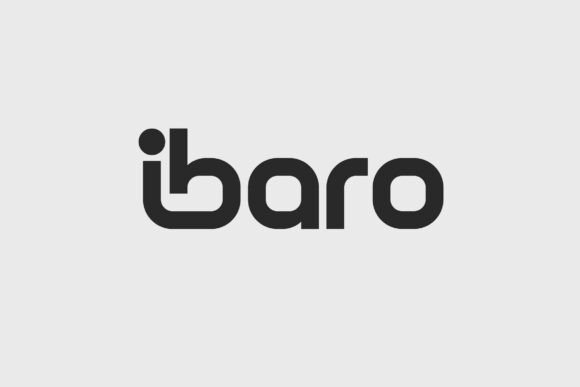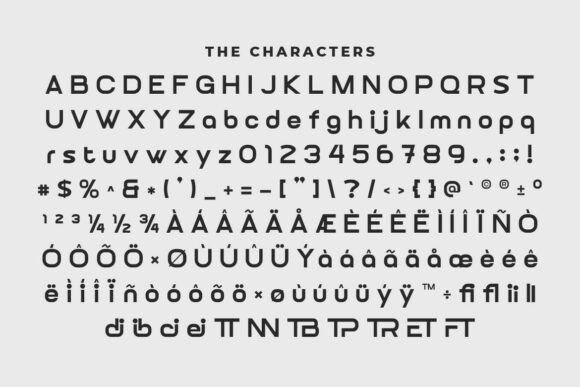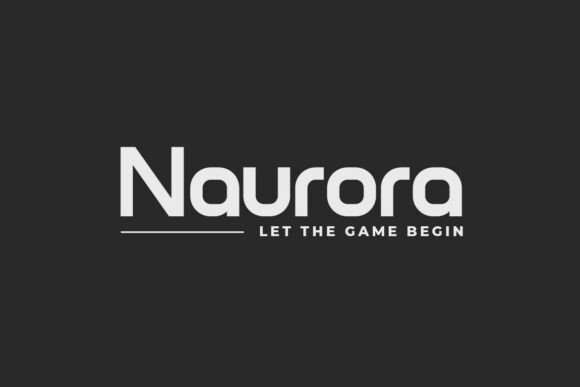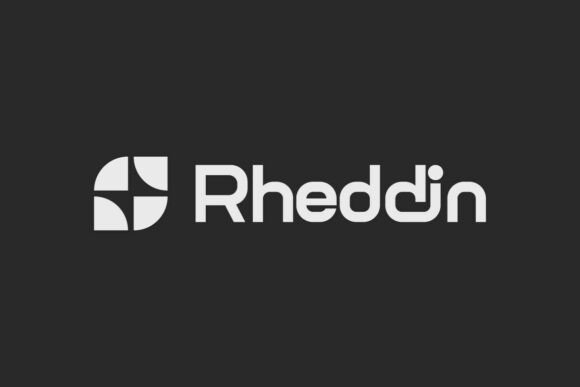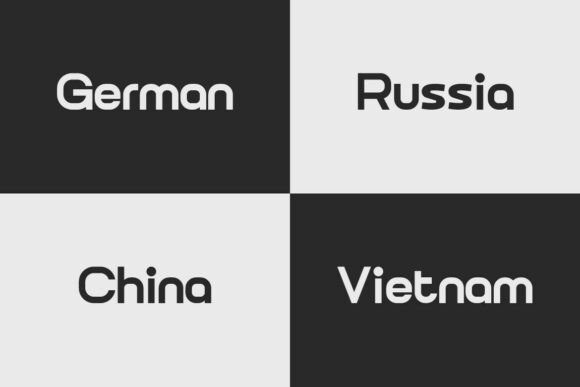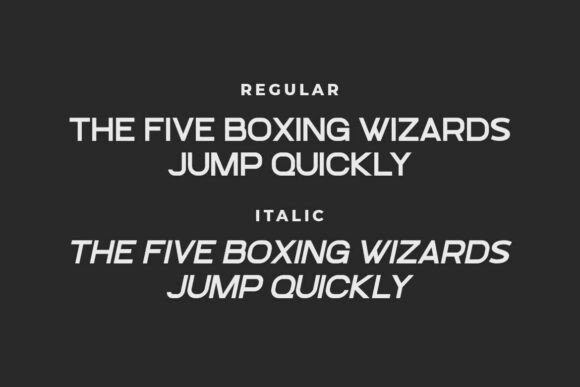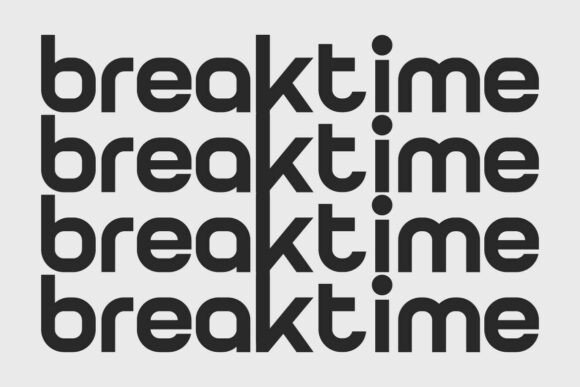
| 📌 Product Name | Ibaro Font |
| 👤 Author | Artiveko |
Enter the Ibaro Font, a sleek and versatile sans serif font designed to create strong, memorable logos and impactful brand identities. With its geometric structure, clean lines, and well-balanced proportions, Ibaro delivers a professional and contemporary aesthetic suitable for a wide range of industries. As a valuable addition to any designer’s toolkit, the Ibaro Font offers a unique combination of style and versatility that’s hard to resist.
Ibaro Font Key Features
- Font Family: Ibaro is a digital font family designed to represent the Yoruba language, a major language spoken in Nigeria and Benin.
- Font Size and Resolution: The font family includes multiple weights, ranging from Extra Light to Extra Bold, with a recommended font size of 12-24 points and a resolution of 300 DPI.
- Unique Characteristics: Ibaro Font is designed to preserve the cultural heritage of the Yoruba people, with distinctive letterforms and ligatures that reflect the language’s unique script.
- Language Support: The font family supports the Yoruba language, as well as other languages that use the Latin alphabet, including English, Spanish, and French.
Ibaro Font Review
I’ve had the chance to play around with the Ibaro font, and I must say it’s an interesting one. Here are my honest thoughts.
- The Ibaro font has a unique, cultural flair to it, drawing inspiration from various African scripts.
- The font is highly legible, making it suitable for a wide range of applications, from body text to headings.
- The designer has paid attention to the details, ensuring that the font is consistent across different weights and styles.
- The Ibaro font may not be suitable for all audiences, as some users may not be familiar with the script or may find it difficult to read.
- The font’s uniqueness can also be a limitation, as it may not fit in with more traditional or conservative design styles.
- The font could benefit from additional language support, as it currently only supports a limited range of languages.
The Ibaro font is a bold and eye-catching choice for designers looking to add some cultural flair to their projects. While it may not be suitable for all audiences, it’s definitely worth considering for the right projects. With some additional language support and more design flexibility, the Ibaro font could be a real showstopper.
Getting the Most Out of Ibaro Font
To get the most out of the Ibaro font, use it in combination with other fonts to create a unique and visually appealing design.
Experiment with different font sizes, colors, and styles to add depth and interest to your design.
Common use cases for the Ibaro font include:
1. African-inspired designs and branding.
2. Cultural and ethnic-themed events and publications.
3. Artistic and creative projects that require a unique and exotic font style.
Alternatives to Ibaro Font for Designers